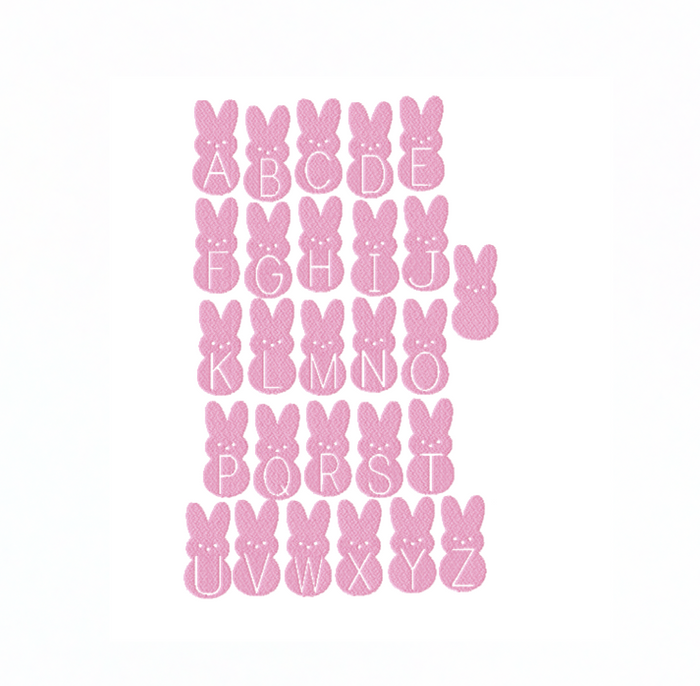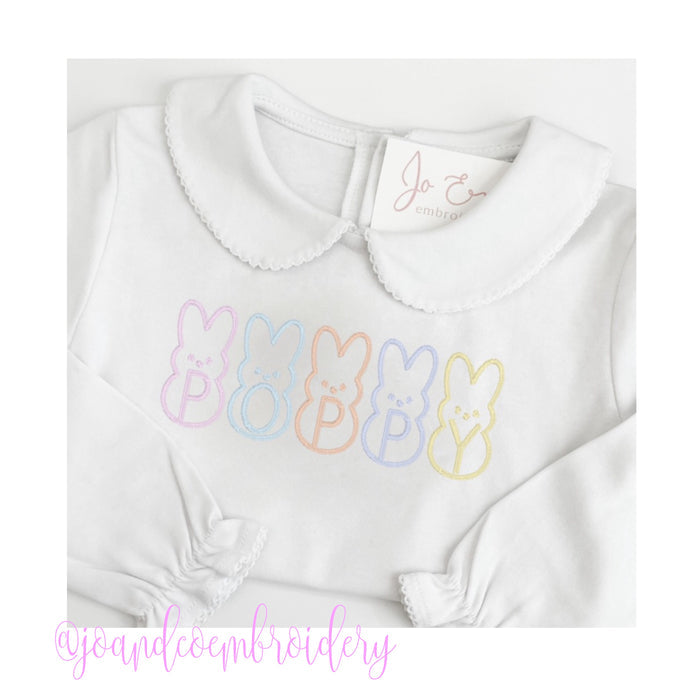
Peeps Easter Bunny Embroidery Font for craft projects
Peeps Easter Bunny Candy Embroidery Font 4x4
Unleash your creativity with the Peeps Easter Bunny Candy Embroidery Font. This delightful font package includes both embroidery fill and satin stitch outline variations in multiple sizes, making it a must-have for your crafting toolkit.
Featuring uppercase letters A-Z and an adorable Peep Bunny, you can personalize your Easter projects effortlessly. Sizes available range from 1" to 3.5", ensuring versatility for any design. The font is compatible with various formats, including PES, DST, VIP, VP3, HUS, EXP, JEF, XXX, EMB, and BX.
With the Peeps Bunny Embroidery Font, elevate your projects and impress family and friends this Easter season!